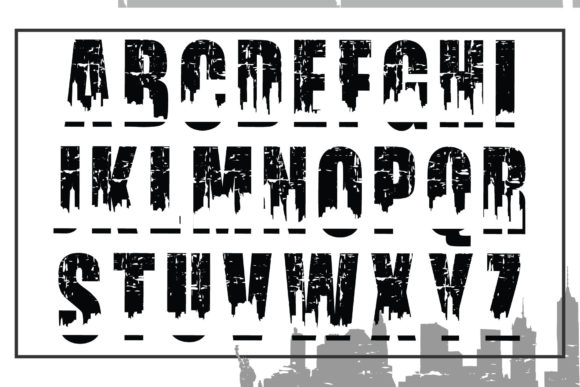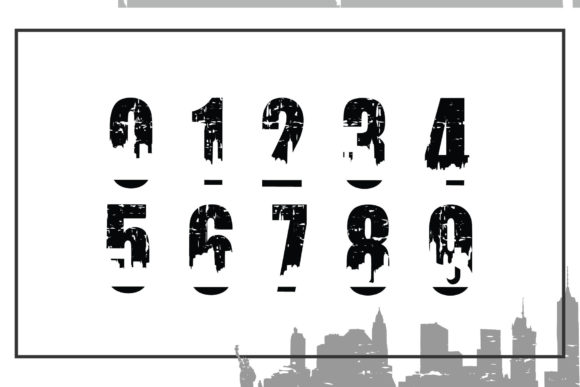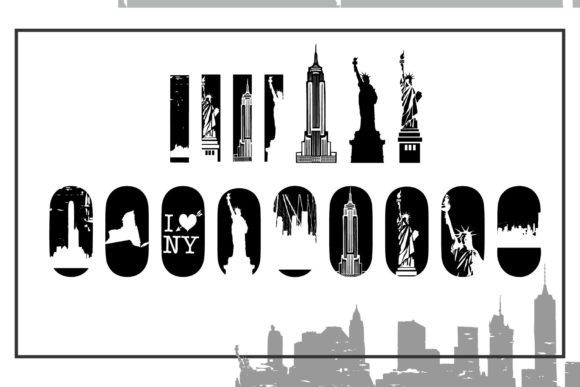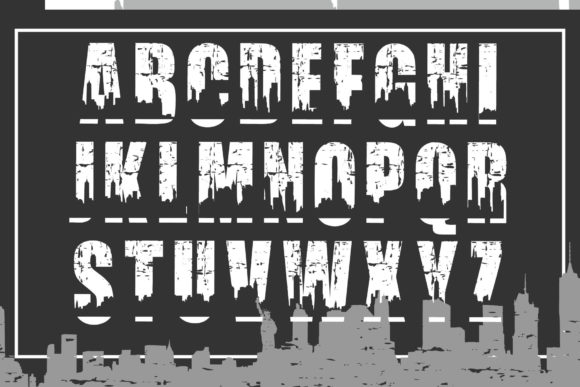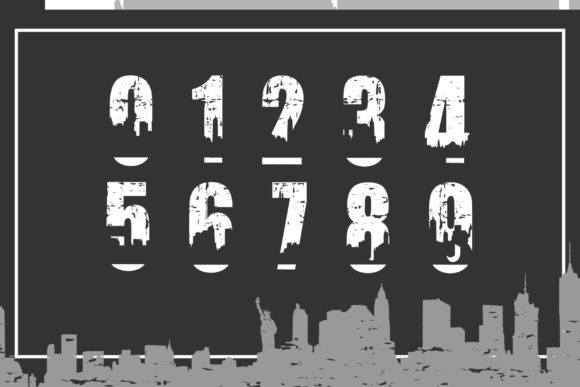
Introduction to New York City Edition Font
Have you ever been stuck in a creative rut, searching for the perfect design element to elevate your project? I know I have. It’s like that moment when you’re brainstorming ideas for a new design, and suddenly, a spark of inspiration hits you. For me, it was the discovery of the New York City Edition Font – a game-changing decorative font that’s as bold as the city that inspired it.
With its high-quality design and sleek aesthetic, the New York City Edition Font is a valuable resource for designers looking to add a touch of glamour to their creative projects. Whether you’re working on a design that requires a transparent background or a high-contrast look, this font is sure to deliver. And the best part? It’s available for free download, making it an essential design resource for any creative project.
New York City Edition Font
- High-quality design resource with a transparent background, perfect for creative projects.
- Features a unique, urban-inspired aesthetic, ideal for city-themed designs.
Honest Review: New York City Edition Font
I recently had the chance to work with the New York City Edition Font, and I’m excited to share my thoughts on this design resource. As a designer, I’m always on the lookout for high-quality fonts that can elevate my creative projects.
What works well with this font is its sleek and modern aesthetic, perfect for designing anything from logos to brochures. The transparent background feature is also a great touch, allowing me to easily layer it with other design elements. The free download option is also a major plus, making it accessible to designers of all levels.
Here are some of the key features that stood out to me:
- ✨ Sleek and modern aesthetic
- ✨ Transparent background feature
- ✨ High-quality design
As with any design resource, there are some limitations to consider. The font may not be suitable for all types of projects, particularly those that require a more traditional or vintage feel.
Overall, I’m impressed with the New York City Edition Font. It’s a great addition to any designer’s toolkit, and I’d definitely recommend it for any creative project that requires a modern and sophisticated look.
Use the New York City Edition Font with a transparent background to create a modern and sleek design. Experiment with different font sizes, styles, and colors to find the perfect combination for your project.
The New York City Edition Font is perfect for use in business cards, brochures, posters, and other marketing materials. It’s also great for use in creative projects such as infographics, social media graphics, and presentations.